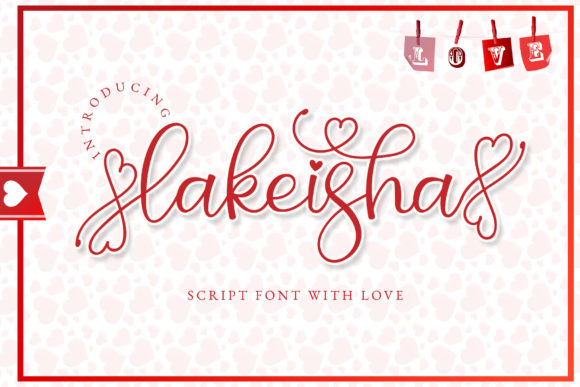
Unleash the allure of romance with Lakeisha Font, a captivating script designed to ignite the passions of your design projects. Inspired by modern love, this font weaves a tale of affection through its enchanting heart-themed swashes. Prepare to be swept off your feet as Lakeisha gracefully adds a touch of elegance and charm to your creations, leaving a lasting impression that resonates with hearts.
Let your imagination blossom as you explore the endless possibilities that await with Lakeisha Font. Its alluring curves and delicate flourishes dance across the page, inviting you to express your emotions with finesse. Whether crafting heartfelt invitations, designing captivating logos, or adding a touch of whimsy to your social media posts, Lakeisha Font stands as your trusted companion, translating your thoughts into visually stunning masterpieces.
Immerse yourself in the beauty of Lakeisha's meticulously crafted characters, each lovingly designed to evoke a sense of timeless romance. Experience the joy of effortless creativity as you watch your designs come to life, imbued with an aura of love and elegance. With Lakeisha Font as your creative ally, you hold the power to captivate audiences, leaving them spellbound by the sheer brilliance of your creations.